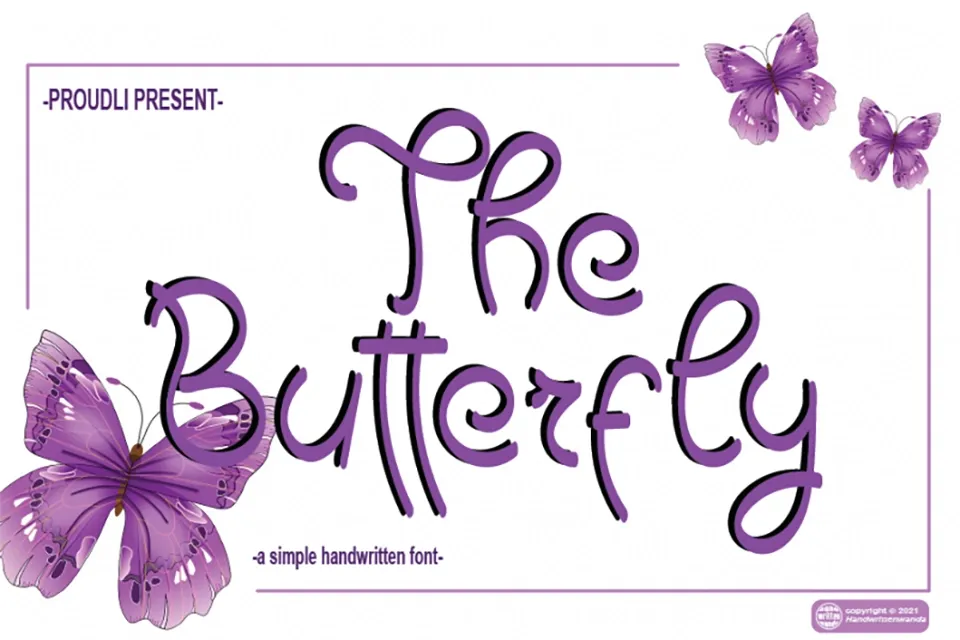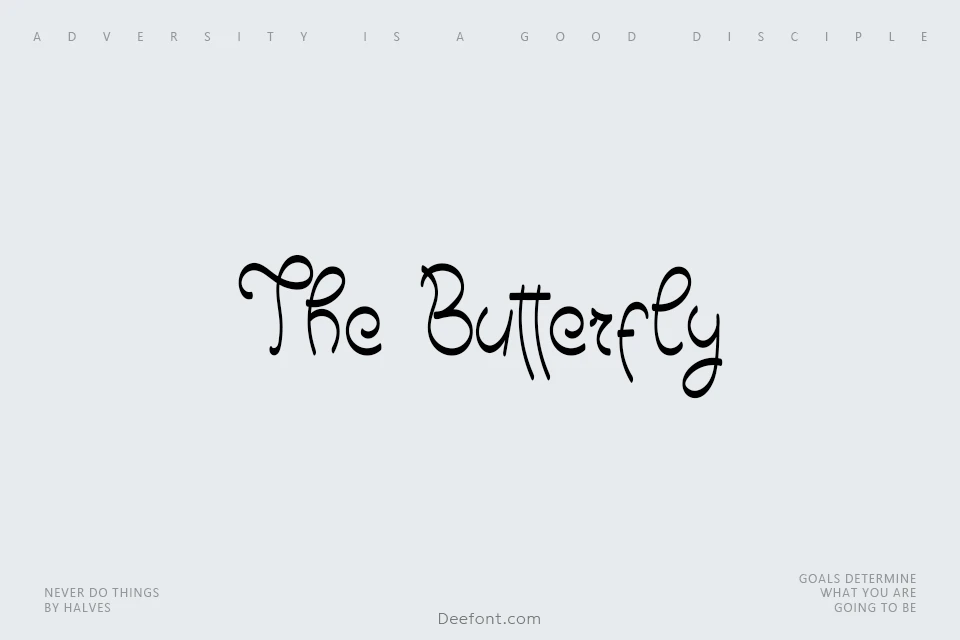
The Butterfly Font
The Butterfly Font is a simple handwritten typeface featuring playful curves and a whimsical style, perfect for adding a touch of charm and elegance to creative projects. Its unique, feminine design makes it ideal for invitations, branding, and decorative text elements. With its easy-to-read yet artistic letterforms, The Butterfly Font brings a delightful and enchanting feel to any design work.